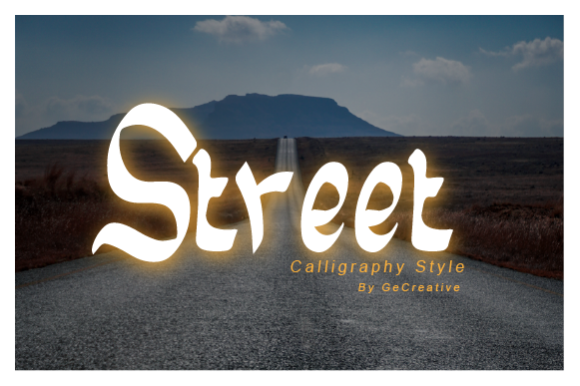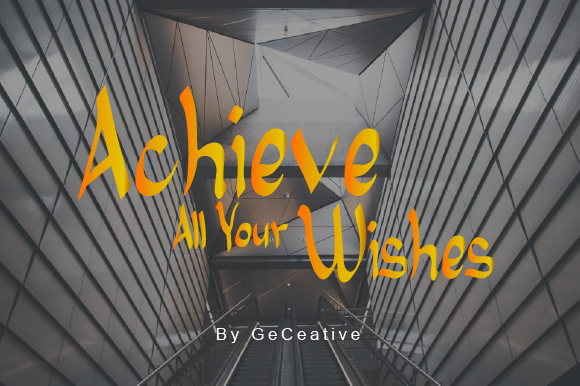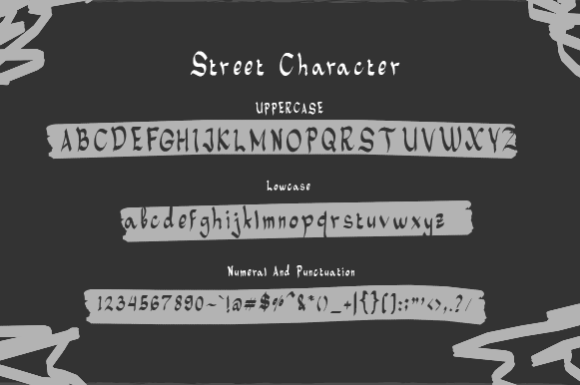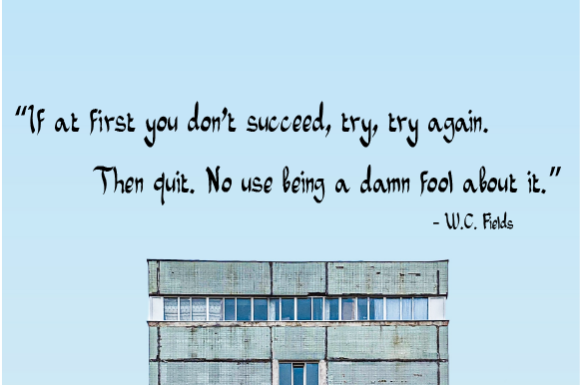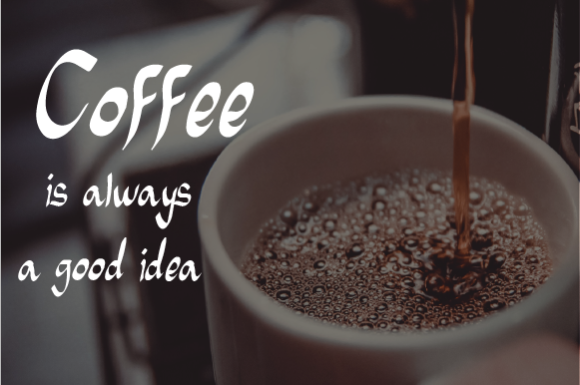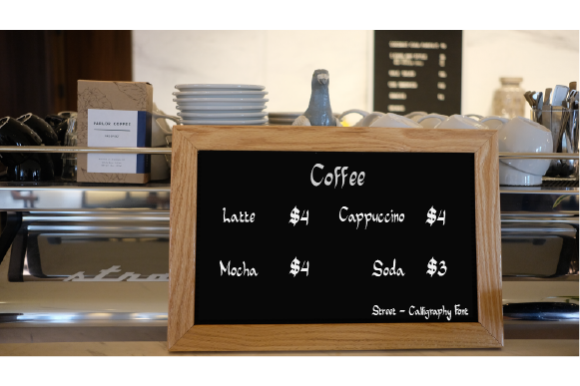
Street Font
About Street Font
Street is an equally modern and charming script font that’s great for taking any design project to the next level. Get inspired by its unique charm!